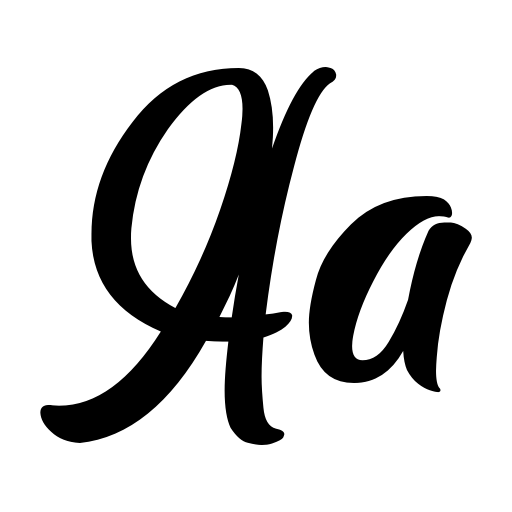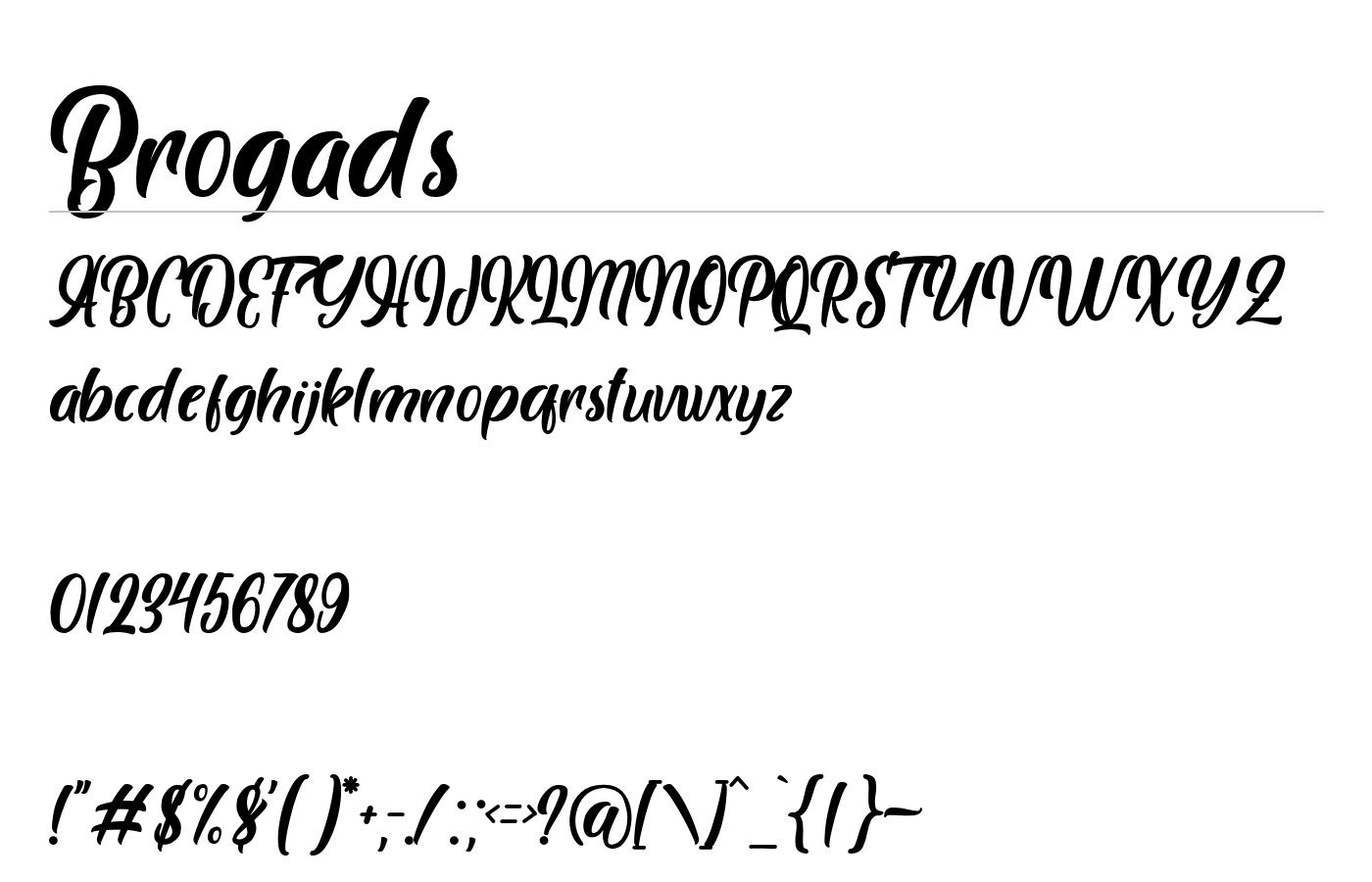
Brogads is a lively script font with bold, smooth strokes and a slightly condensed, upright posture that gives it a confident yet approachable personality. Its clear letterforms and moderate contrast make it ideal for stylish branding, headlines, and invitations that seek a friendly but refined look. This font works well where a sense of modern elegance with a handwritten feel is desired.
Brogads Font
About Brogads Font
| Font family | Brogads Font |